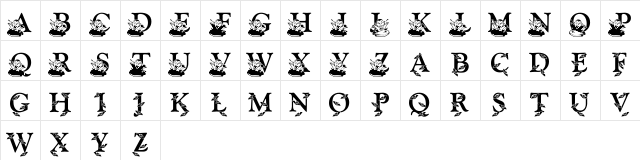
LMS Bloodsucker Proxy Regular
Design Context for LMS Bloodsucker Proxy Typeface
LMS Bloodsucker Proxy leans into the macabre with letterforms designed to disturb and intrigue in equal measure.
Perfect for anything that needs to unsettle — game titles, horror branding, and macabre invitations.
Font Pairing: Pair with a clean neutral sans-serif for body copy to let LMS Bloodsucker Proxy's character lead without overwhelming the composition.
Pro Tip: Use LMS Bloodsucker Proxy at larger display sizes for maximum impact. Consider generous tracking to let the disturbing character of each letterform breathe.